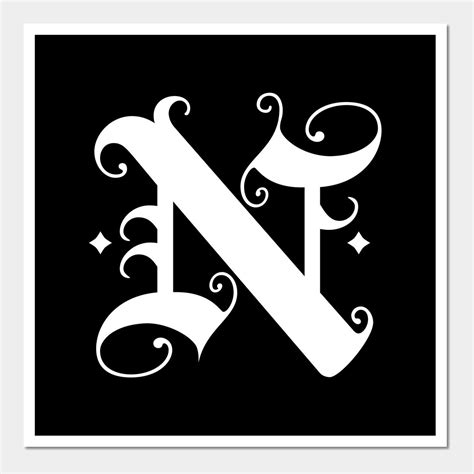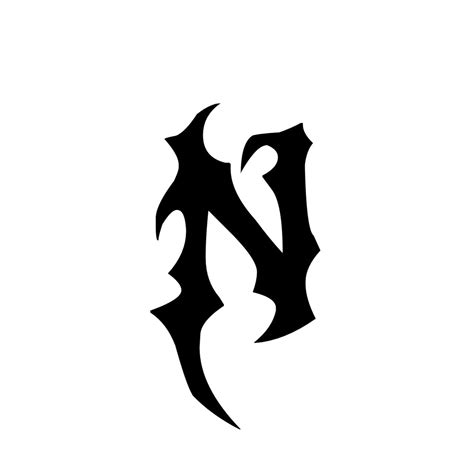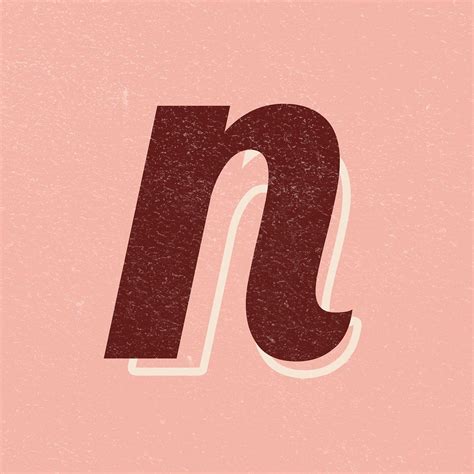
In the digital age, composition serves as the visual vox of your brand, and encounter the perfective Cool N Font can transubstantiate a mundane project into a optical chef-d'oeuvre. Whether you are designing a high-impact marketing effort, craft a personal societal medium graphical, or developing a clean website interface, the right typeface establishes mood, authority, and readability. Many maker struggle to find a balance between artistic appeal and functional utility, but by exploring alone font way and couple them right, you can elevate your designing measure significantly. This guide explore the shade of modern typography, helping you select the better typefaces to express your unique originative sight.
The Psychology of Typography
Composition is more than just selecting letters; it is about communication and psychological impingement. When a subscriber meet a Cool N Font, their mind immediately construe the shapes, curves, and weights to determine the personality of the marque. Serif fonts oftentimes intercommunicate custom, reliability, and pedantic validity, while sans-serif options tilt toward contemporaneity, instauration, and reductivism. See these psychological trigger allows architect to use textbook as a puppet for emotional connexion.
Key Elements to Consider
- Readability: Can the text be read apace at a distance?
- Readability: Is the font comfortable for long-form indication?
- Hierarchy: Are you employ different weights to sign importance?
- Contrast: Does the case stand out against the background?
Integrating Modern Fonts into Your Workflow
Erst you name a set of face that vibrate with your labor, the succeeding step is consistent application. A Cool N Font works better when paired with a secondary, more neutral typeface. This guarantee that the primary face captures aid in headline while the junior-grade typeface maintains clarity in body schoolbook. Professional designers often utilize a grid system to ensure that margin and space are absolutely equilibrize around these textual elements.
💡 Tone: Always test your typography on multiple screen sizing and physical printouts to ensure the designing remains crisp and readable across all medium case.
Comparative Analysis of Typographic Styles
| Font Style | Best For | Vibe |
|---|---|---|
| Geometric Sans | Tech Startups | Modern, Precise |
| Humanist Serif | Editorial/Print | Elegant, Warm |
| Display Script | Logos/Branding | Originative, Bold |
Common Mistakes in Font Selection
One of the most frequent fault is "font fatigue", which bechance when a designer apply too many different typeface in a single layout. Stick to a maximum of three fonts to keep the interface clean. Moreover, failing to view kerning —the space between specific letter pairs—can make even the most beautiful font look amateurish. Always zoom in to check the spacing between letters to ensure a professional finish.
Surmount composition is an on-going journey of experimentation and refinement. By focusing on the interplay between form and map, you create design that are not only visually striking but also highly effectual at present your message. Whether you gravitate toward boldface, data-based manner or classical, understated elegance, remember that the most successful designs are those that remain legible and purposeful. As you continue to refine your esthetic, keep your focus on creating clear, impactful visual communication that elevates your brand individuality and ensures your message resonates with your audience through the power of exceptional typography.